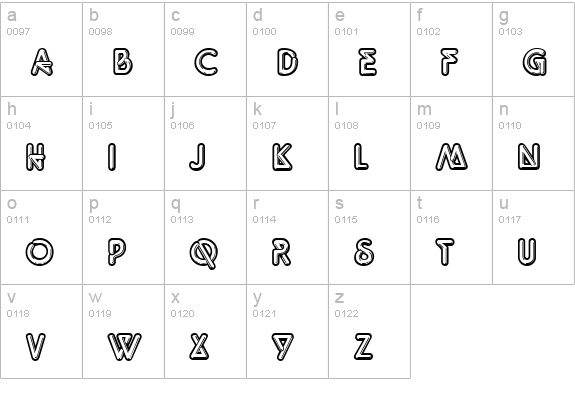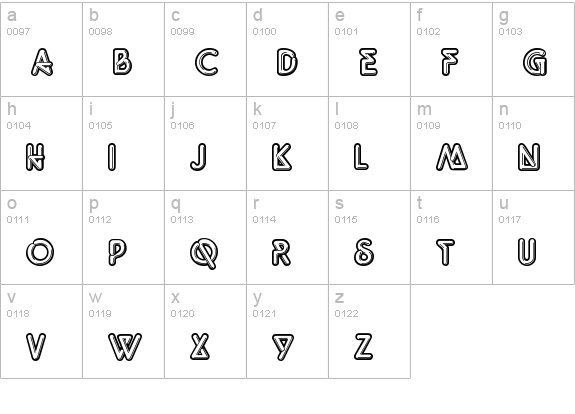
Quark Neon is a stunning and vibrant font that is guaranteed to make your designs pop. With its sleek and modern appearance, this font captures the essence of contemporary design and adds a touch of excitement to any project. Featuring bold and sharp letterforms, Quark Neon is perfect for headlines, logos, posters, and any other design that needs to grab attention. Its unique and eye-catching style is sure to stand out from the crowd and leave a lasting impression. Not only does Quark Neon offer exceptional visual appeal, but it also offers the convenience of being free. That's right, this fantastic font is freely available to download at FontsMarket.com. Whether you're a professional designer or a hobbyist, you can now access this incredible font without any cost. Quark Neon's versatility knows no bounds. Its clean lines and legibility make it suitable for a wide range of design projects, from corporate branding to social media graphics. It's a font that effortlessly combines modernity with a touch of playfulness, making it a go-to choice for designers looking to make a statement. With Quark Neon, you can add a dynamic and energetic element to your designs. Its neon-like appearance instantly brings a sense of liveliness and excitement to any layout. The boldness of the letters creates a powerful impact, ensuring that your message is both seen and remembered. Download Quark Neon for free today at FontsMarket.com and unlock a world of creative possibilities. Whether you're working on a personal project or a client assignment, this font will elevate your designs to new heights. Don't miss out on the opportunity to enhance your work with Quark Neon's captivating and free-to-use style.